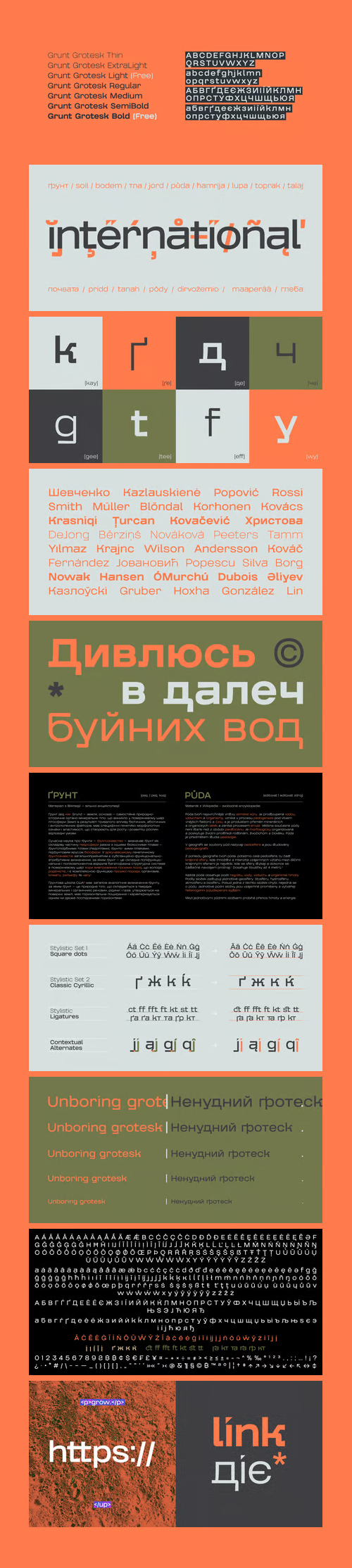
Grunt Grotesk is a modern Ukrainian sans-serif typeface with a number of distinct characteristics,
which make it unboring but still great in the massive text blocks.